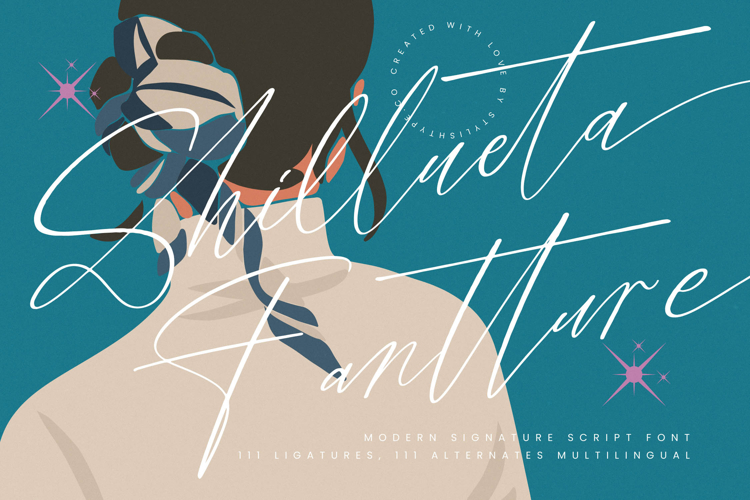
Shillueta Fantture - Modern Signature Script Font
Unleash an aura of refined elegance with Font Shillueta Fantture - Modern Signature Script Font Script, a breathtaking script font designed to infuse your projects with unparalleled sophistication. This exquisite typeface masterfully blends contemporary aesthetics with the timeless charm of authentic handwriting, creating a distinct visual identity that commands attention and resonates deeply.
Experience unparalleled design versatility through the meticulous craftsmanship of Font Shillueta Fantture - Modern Signature Script Font Script. Featuring delicate yet impactful strokes and an organic rhythm, this font offers a wealth of creative possibilities. Its comprehensive array of ligatures and alternates ensures a truly customized appearance, crafting unique textual compositions with a high-end feel.
Expand your brand's reach globally with the inherent adaptability of this exceptional typeface. With its extensive multilingual support, Font Shillueta Fantture - Modern Signature Script Font Script adapts seamlessly across global markets, making it incredibly versatile for international projects. This ensures your message retains its sophisticated appeal, establishing a consistent global brand presence.